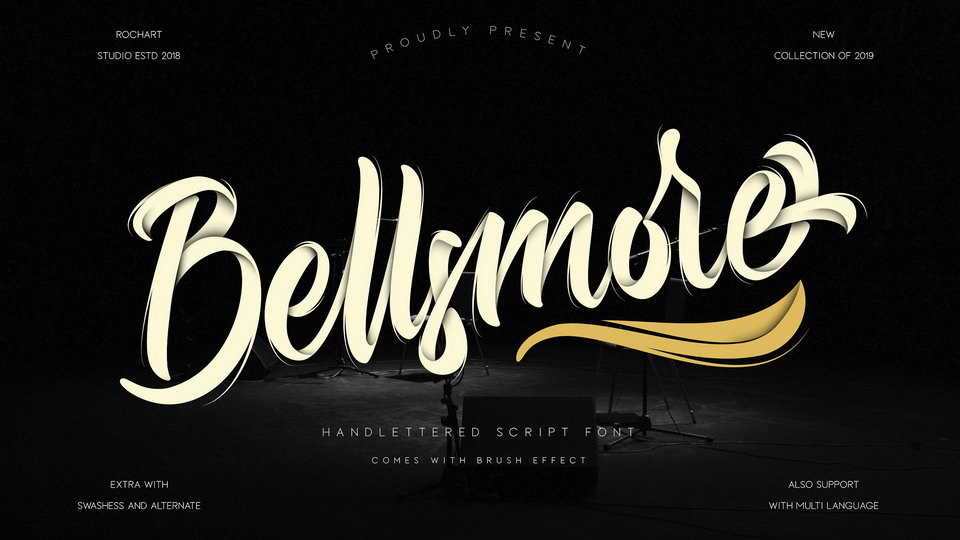
Download Bellsmore Brush font, a fancy hand lettered vintage script with a lot of alternates and some swashess. Perfect for logo design, t-shirts, flyers, apparel, packaging, advertising, wedding invitation etc.